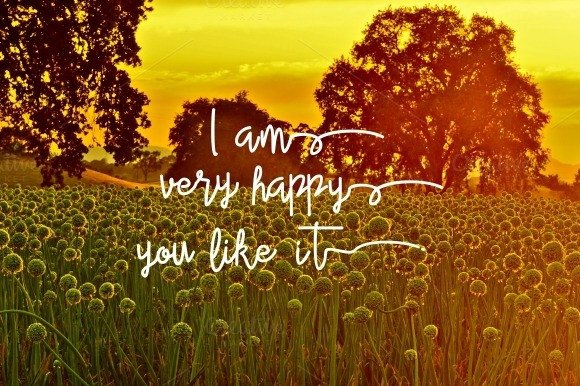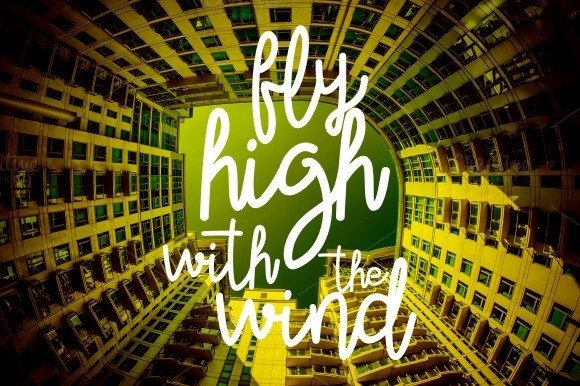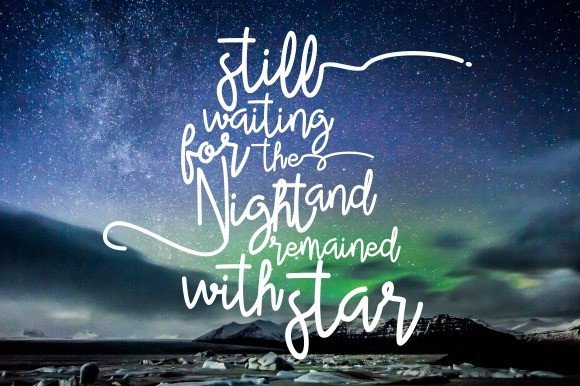
The Perfect Font for Your Love Story: Unveiling Alleana Script Font
Have you ever found yourself lost in a sea of beautiful typography, searching for the perfect font to capture the essence of your romantic designs? As a designer, you know that the right font can make all the difference in conveying emotion and setting the tone for a special occasion. I’ve been there, too – pouring over font libraries, scrolling through Pinterest boards, and experimenting with different styles until I stumbled upon the one that stole my heart: Alleana Script Font.
This gorgeous, monoline script font is the epitome of elegance and sophistication, perfect for weddings, anniversaries, and other romantic celebrations. With its fluid lines and flourished calligraphy, Alleana Script Font adds a touch of whimsy and romance to any design. Whether you’re a seasoned designer or just starting out, this font is a valuable addition to your toolkit – and I’m excited to share its secrets with you.
Alleana Script Font Key Features
- Font Size and Resolution: This script font is designed to be used at a medium to large size, typically between 24pt and 48pt, and is optimized for high-resolution displays (Retina and above) with a resolution of 300 DPI or higher.
- Unique Characteristics: Alleana Script Font boasts a beautiful, elegant script style with subtle flair and fluid connections between letters, making it perfect for adding a touch of sophistication to invitations, wedding stationery, and other formal designs.
- Font Weight and Style: Alleana Script Font comes in a single weight and style, making it easy to use and versatile for a variety of design applications.
Alleana Script Font Review
As a designer, I was excited to dive into the Alleana Script Font and see if it lives up to its elegant and sophisticated reputation. ✨ From the get-go, I was impressed with the beautiful cursive script that’s perfect for adding a touch of whimsy and romance to any design.
One of the things that really stood out to me was the versatility of this font. ✨ It’s suitable for a wide range of designs, from wedding invitations to blog headers. The subtle flair and elegance make it a great choice for luxury brands or high-end projects.
However, I did encounter a few limitations with the Alleana Script Font. ⚠️ The font can be quite dense, which may make it difficult to read at smaller font sizes. Additionally, the font may not be the best choice for projects that require a lot of text or complex typography.
- Beautiful cursive script
- Perfect for adding a touch of whimsy and romance to designs
- Suitable for a wide range of designs, from wedding invitations to blog headers
- Subtle flair and elegance make it a great choice for luxury brands or high-end projects
Rating: 4/5
In conclusion, I would highly recommend the Alleana Script Font for designers looking to add a touch of elegance and sophistication to their projects. While it may have some limitations, its beauty and versatility make it a great addition to any design toolbox.
The Alleana Script Font is ideal for:
- Special occasion cards and gifts
For the best results, use the Alleana Script Font in combination with a simple background and bold, contrasting colors.